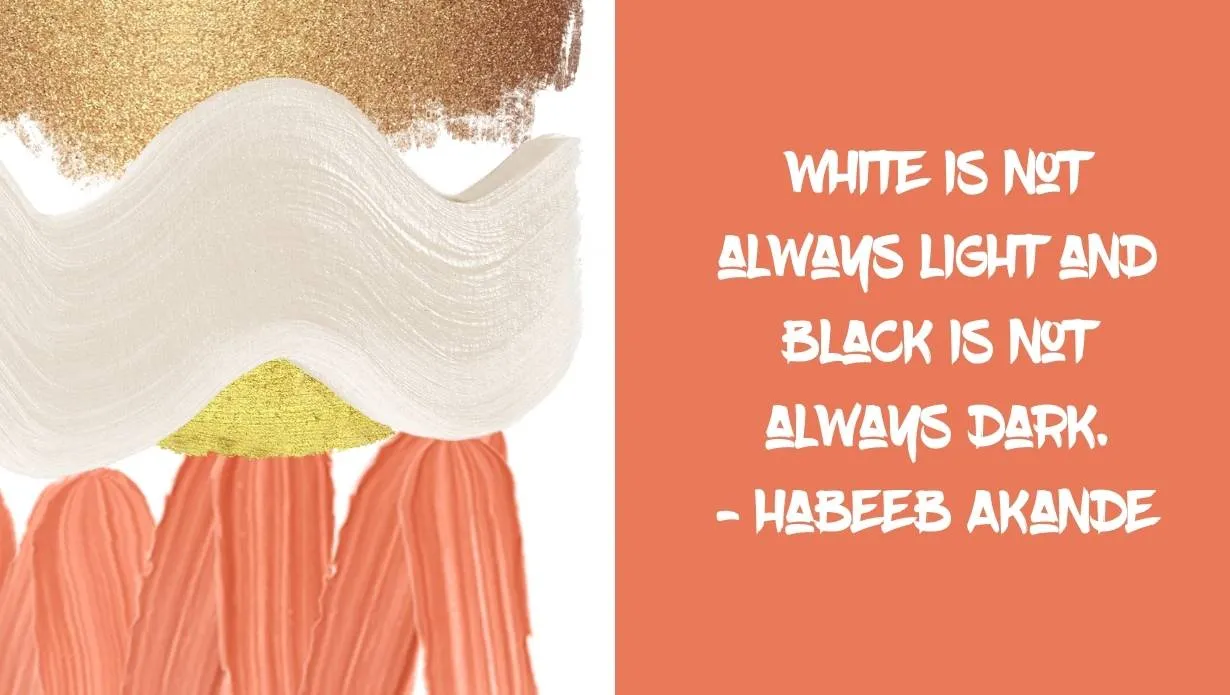
BlowBrush Font was developed and published by ThizIzRaz. This classy font belongs to the Script typeface. It is a modern calligraphy typeface designed to look natural and stylish. The font contains 246 glyphs and 26 ligatures.
This elegant font is perfect for headlines, logos, wedding invitations, and other classy designs. This typeface is best for SVG. Rush Hour Font is similar to this font family. This typeface is best for MS Word.